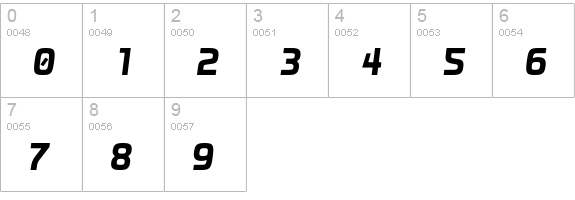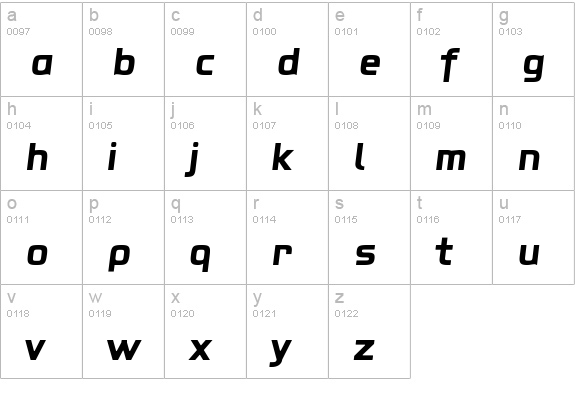
FauxCRA-Display font is a sleek and modern typeface that exudes sophistication and elegance. With its clean lines and sharp edges, this font is perfect for adding a touch of professionalism to any design project. Whether you are creating a logo, poster, or website, FauxCRA-Display font will make your text stand out and leave a lasting impression. The best part? FauxCRA-Display font is completely free to download at FontsMarket.com. You can elevate your designs without breaking the bank, thanks to this high-quality and versatile font. Don't miss out on the opportunity to enhance your creations with FauxCRA-Display font today!